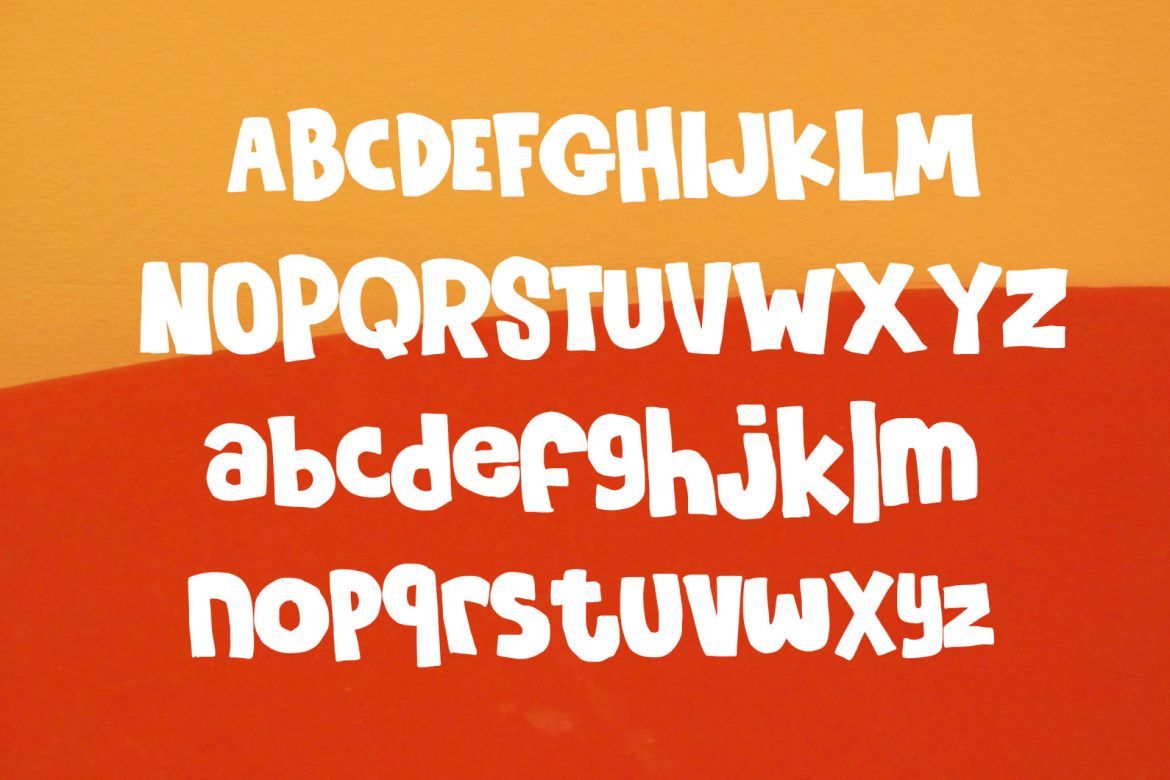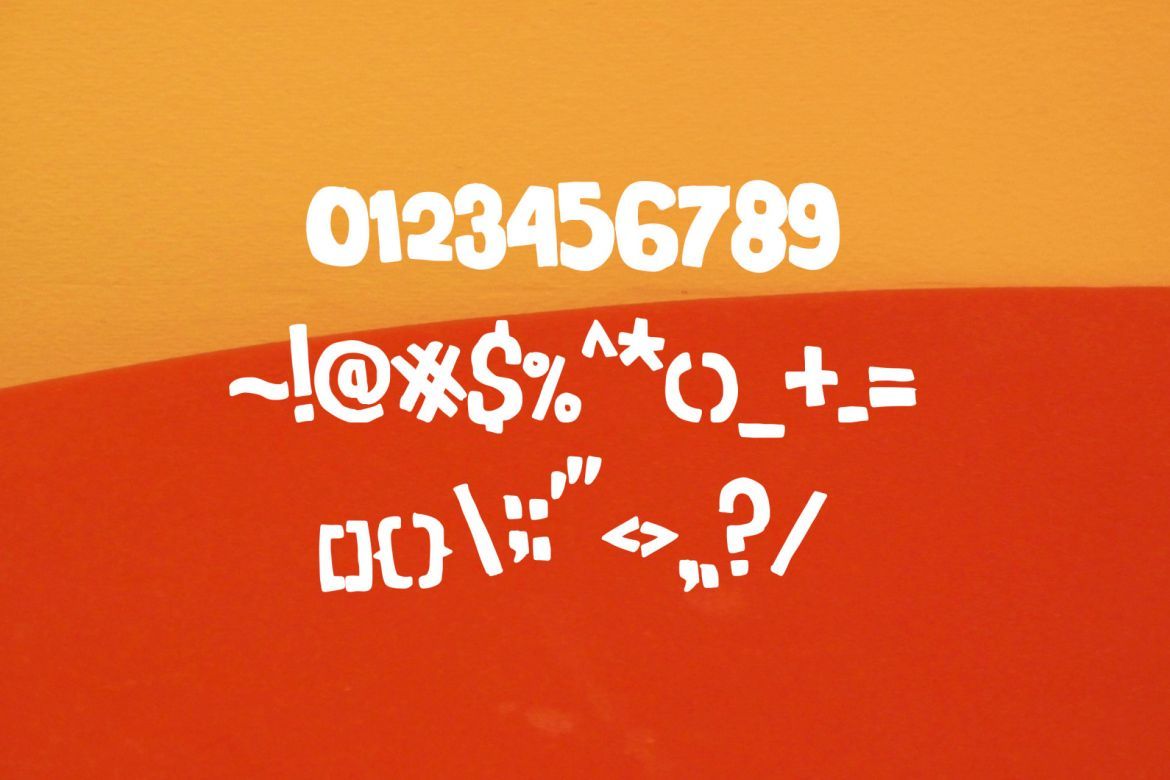
Cardust – Fun Font
Cardust is a bold display font, this font looks funny, cute, kids, cartoon, playful, catchy and easy to use.
Cardust is the best choice for your professional design projects, including signature, watermark on photography, quotes, wedding, fashion, letter, invitation, business card, logo, branding, magazines, social media, advertisements, product designs, and much other design projects.